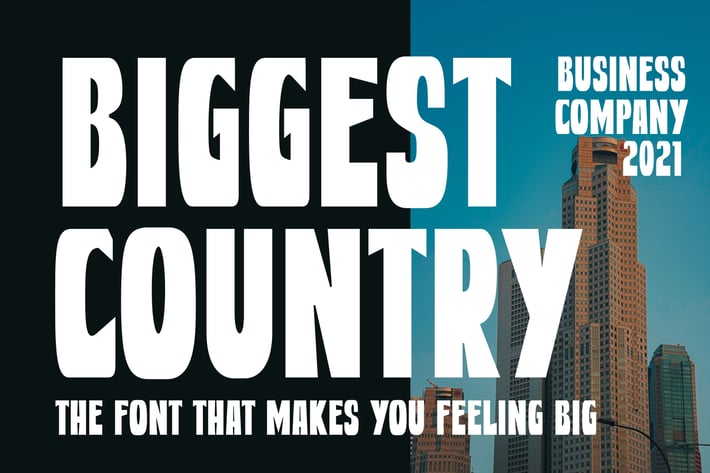
Biggest Country Bold Advertisement Font
Biggest Country is strong bold and modern sans serif font. It can easily be matched to an incredibly large set of projects, so add it to your creative ideas and notice how it makes them stand out!